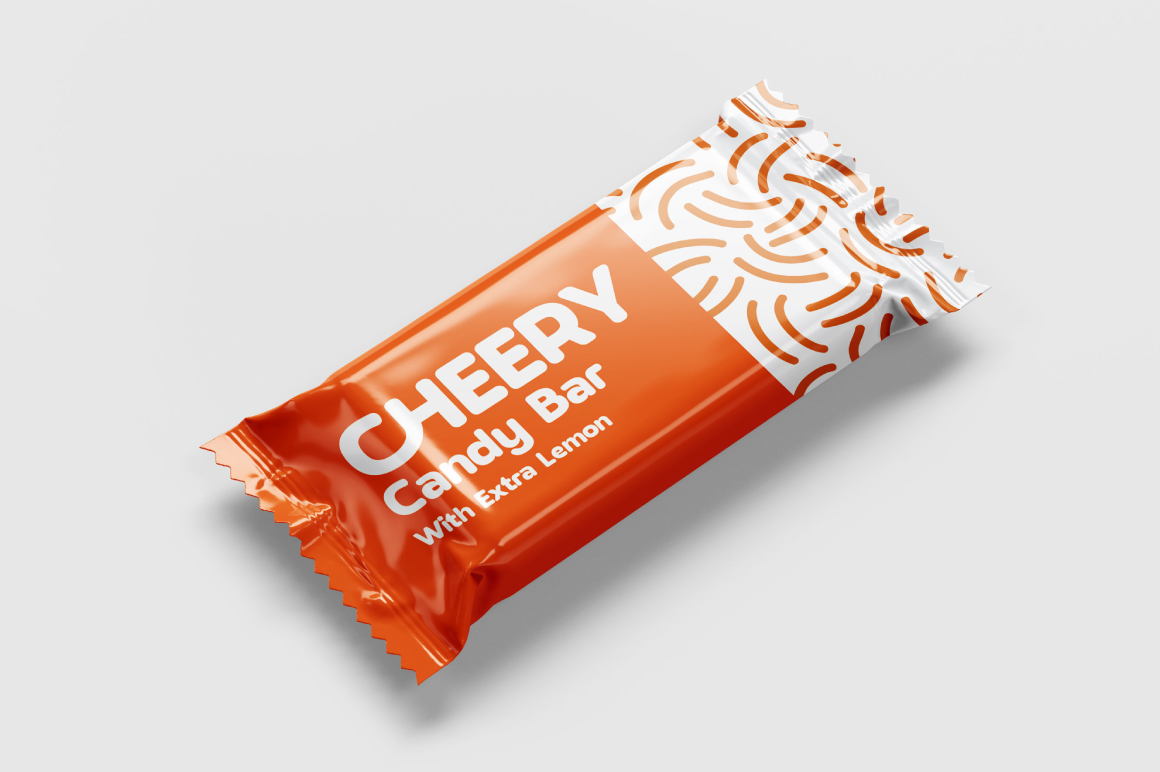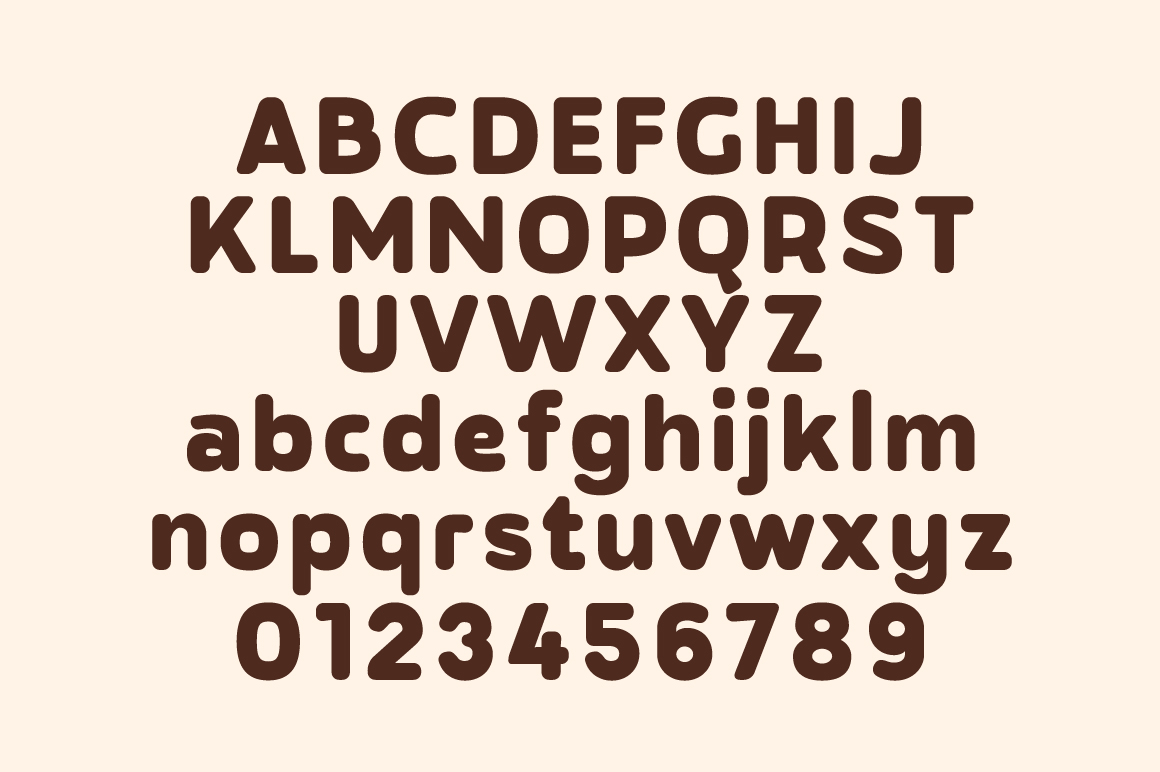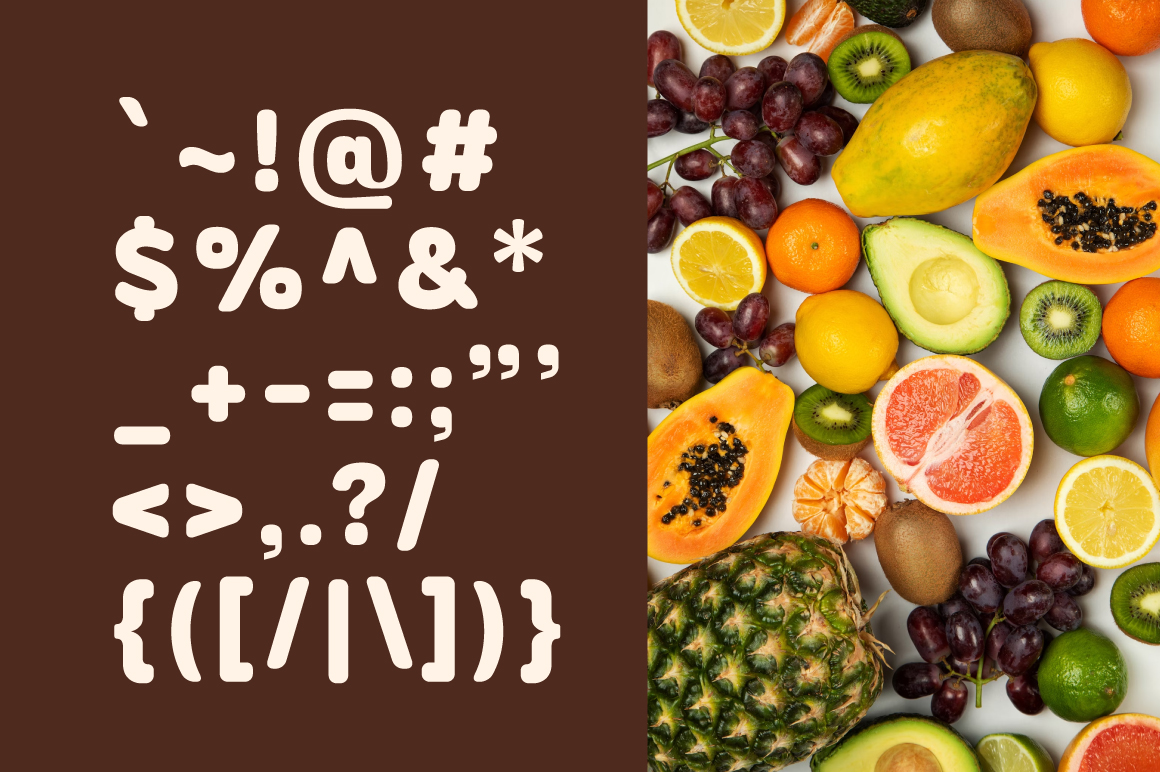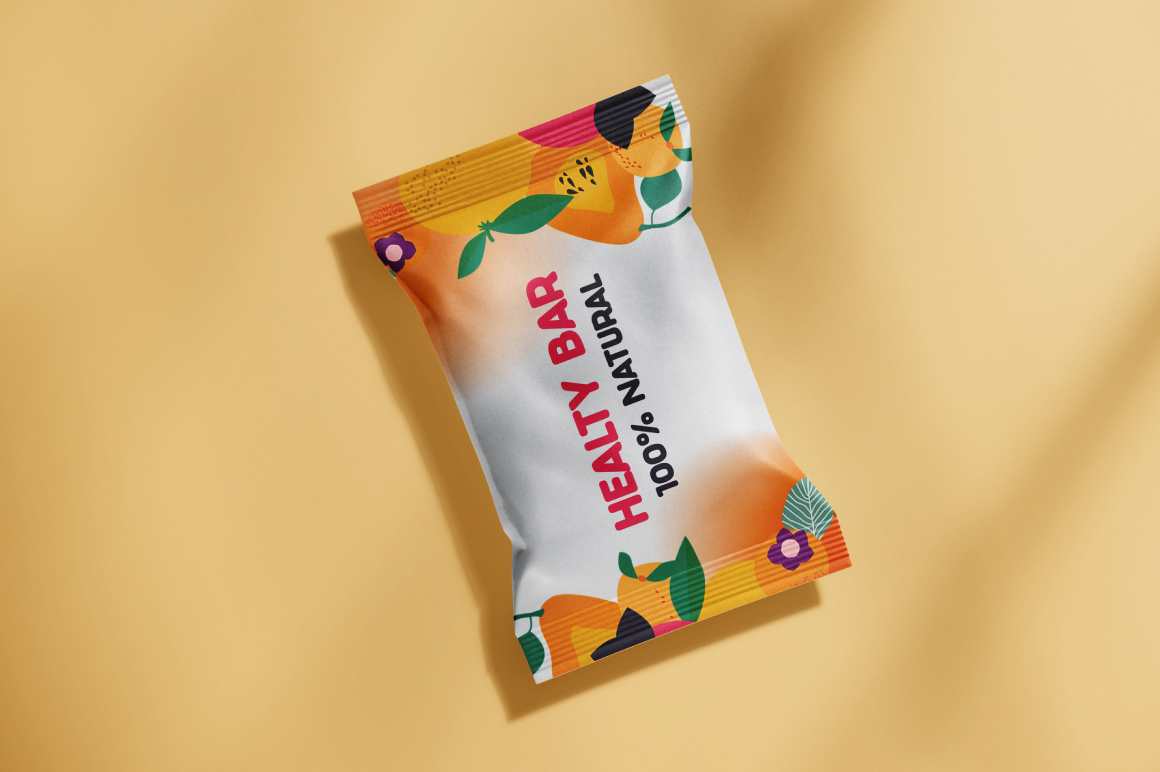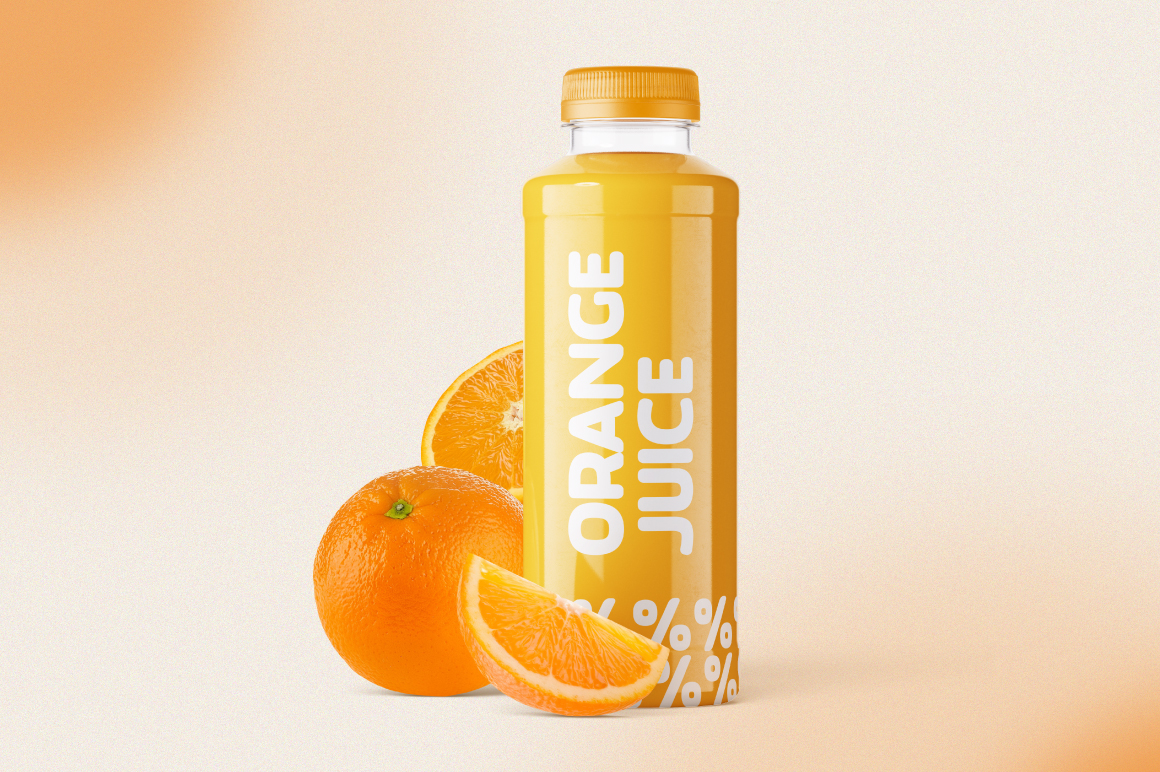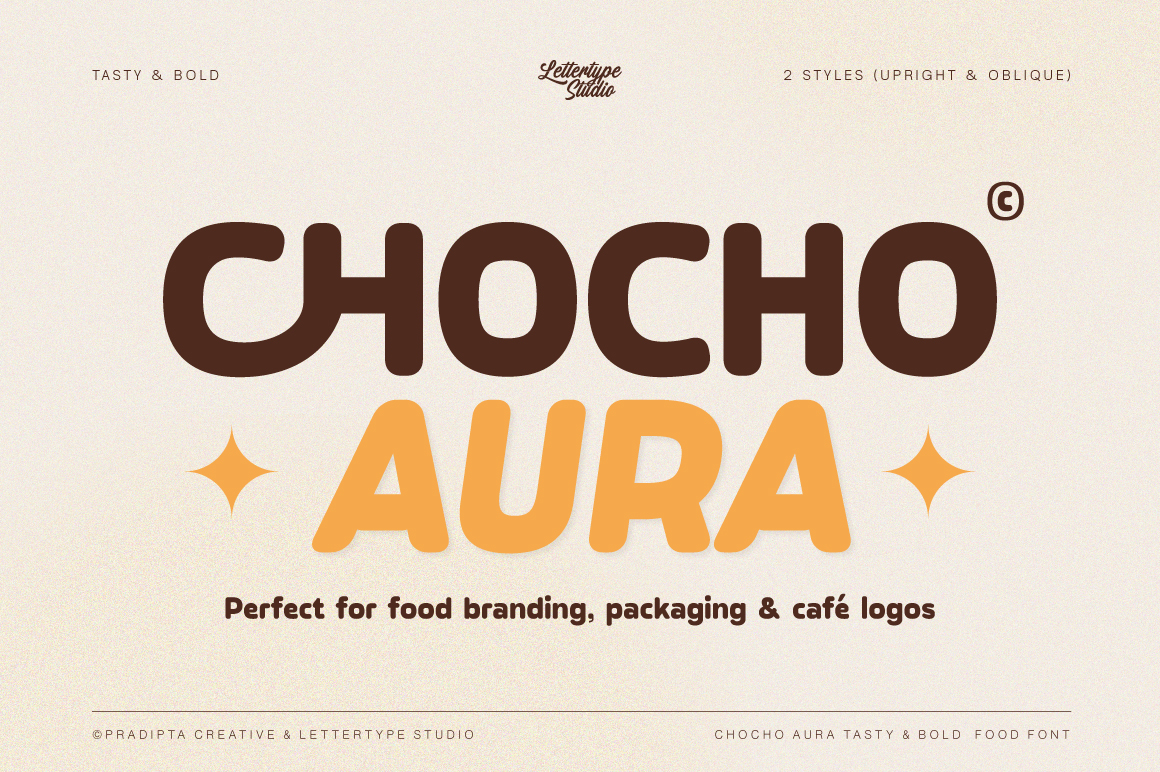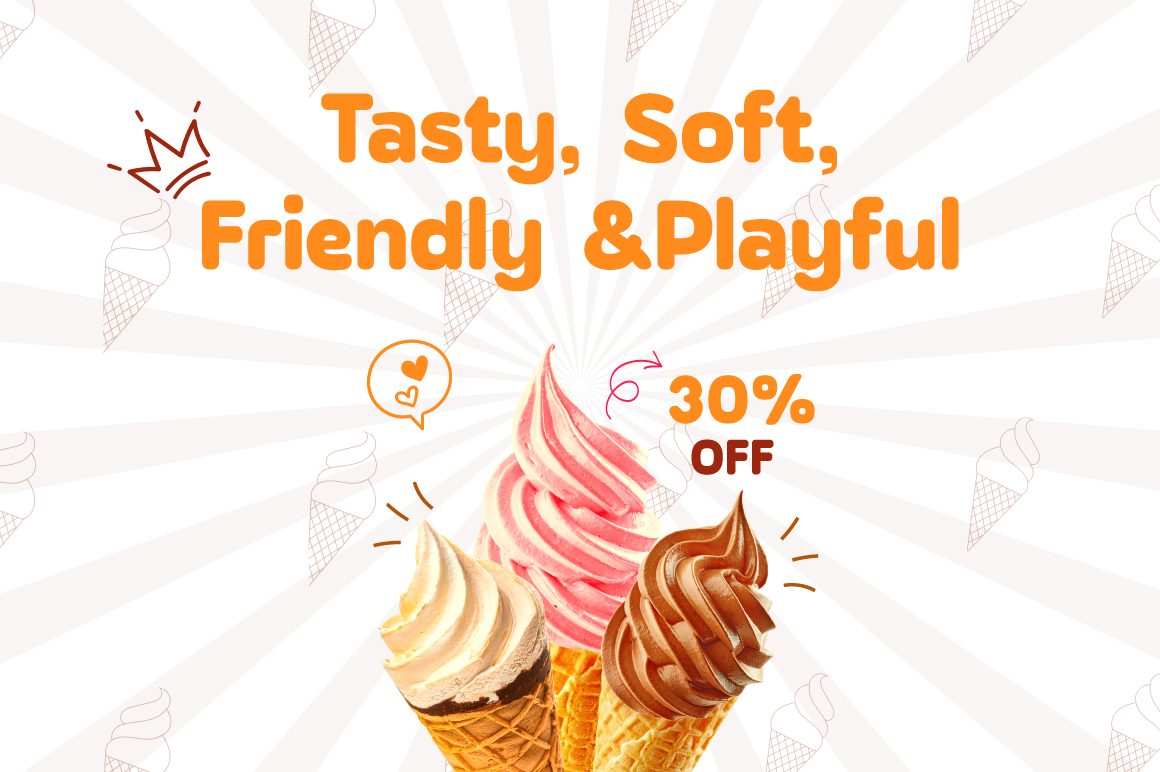
Chocho Aura is a bold, rounded display font with a tasty personality—crafted especially for food branding, playful packaging, café logos, and anything delicious. Its soft curves and thick strokes bring out a friendly, flavorful vibe that’s perfect for designs that need to feel warm, inviting, and fun. Inspired by the current “aura farming” and food design trends, Chocho Aura offers a charming presence that instantly elevates product labels, menu layouts, and social media posts.
This font includes 2 styles: Upright and Oblique, making it simple yet flexible for standout headings, quirky logo types, or bold promotional text. It also supports multilingual characters, allowing you to add an international flair to your designs. Whether you’re working on snack brands, dessert shops, or kid-friendly campaigns, Chocho Aura is your go-to font for turning type into something irresistibly tasty.
Chocho Aura Features:
• 2 font styles
• Upright & Oblique
• 423 glyphs total
• 250+ languages supported
• Multilingual support
• Food branding, café logos & restaurant packaging
• Snack, dessert & beverage product design
• Menu layouts, posters & promotional signage
• Kids’ product branding & playful marketing visuals
• Social media posts & lifestyle content with a tasty touch